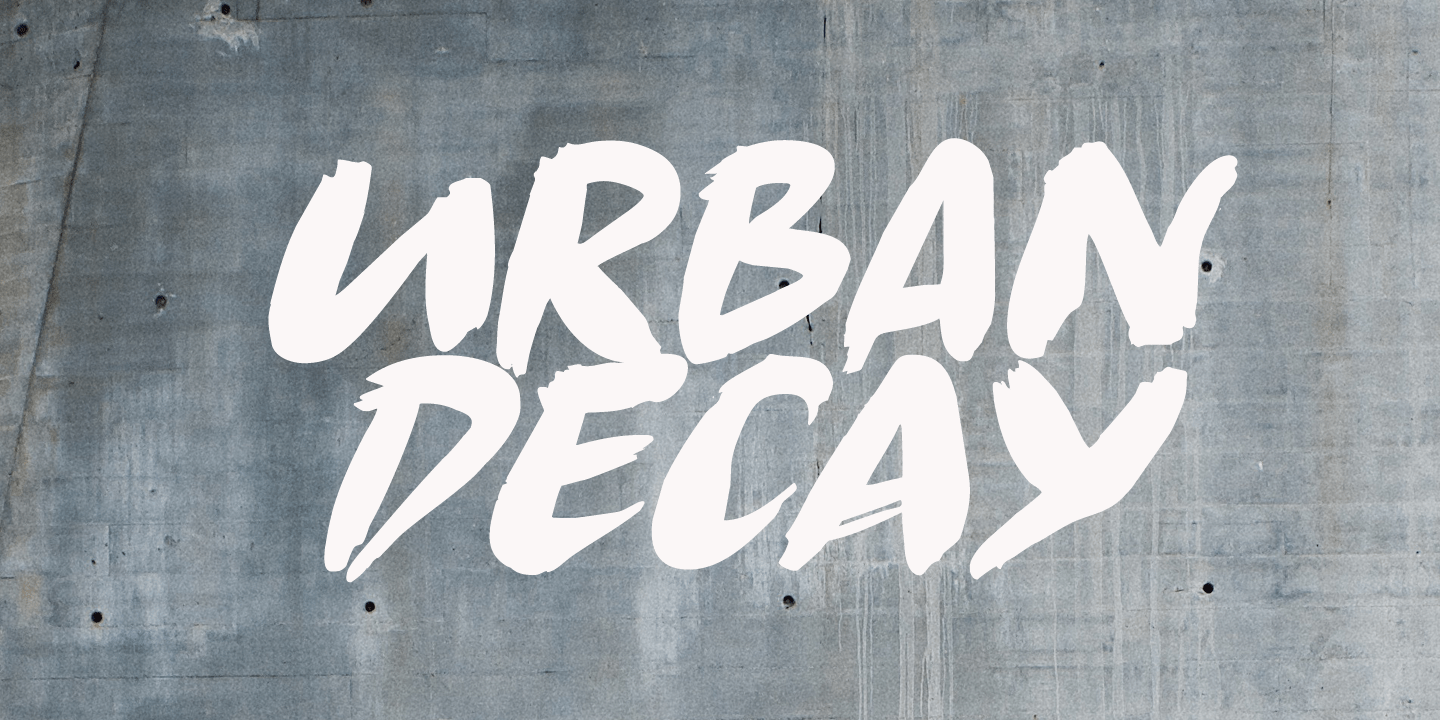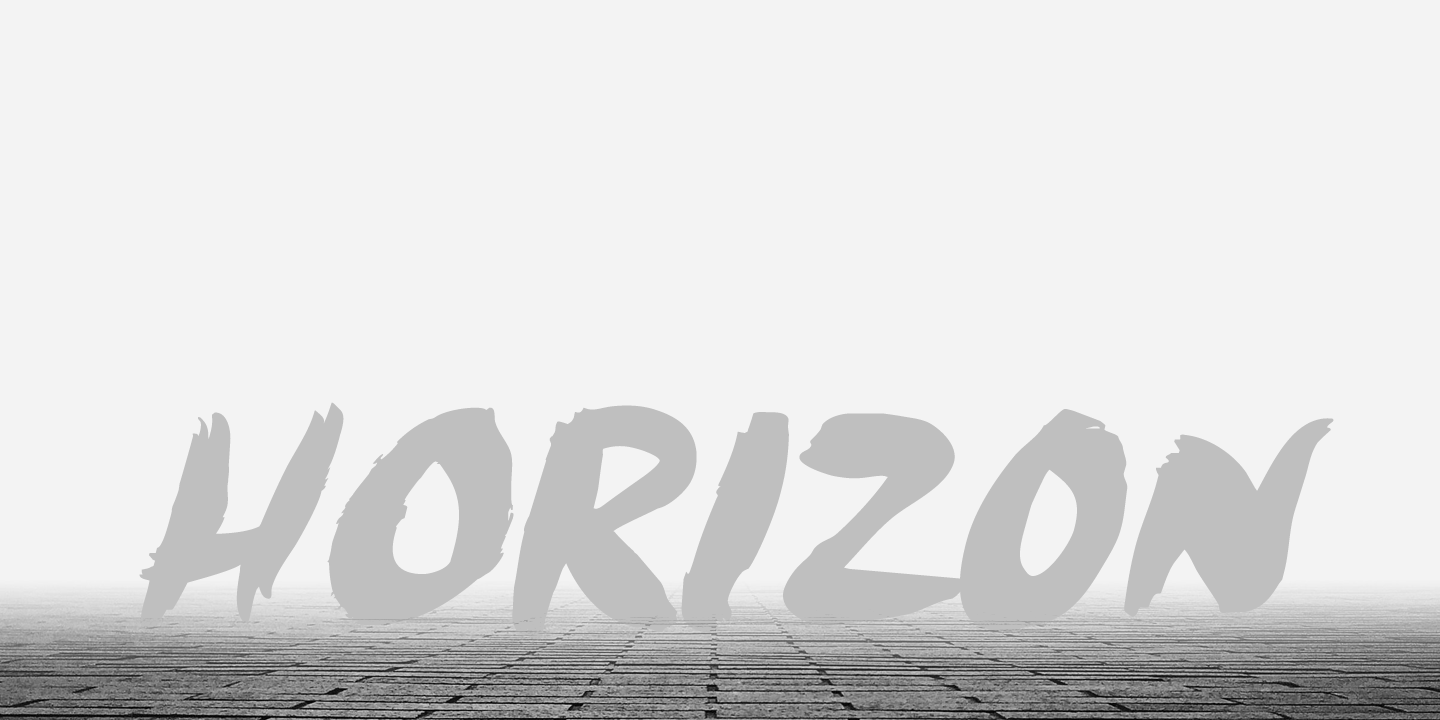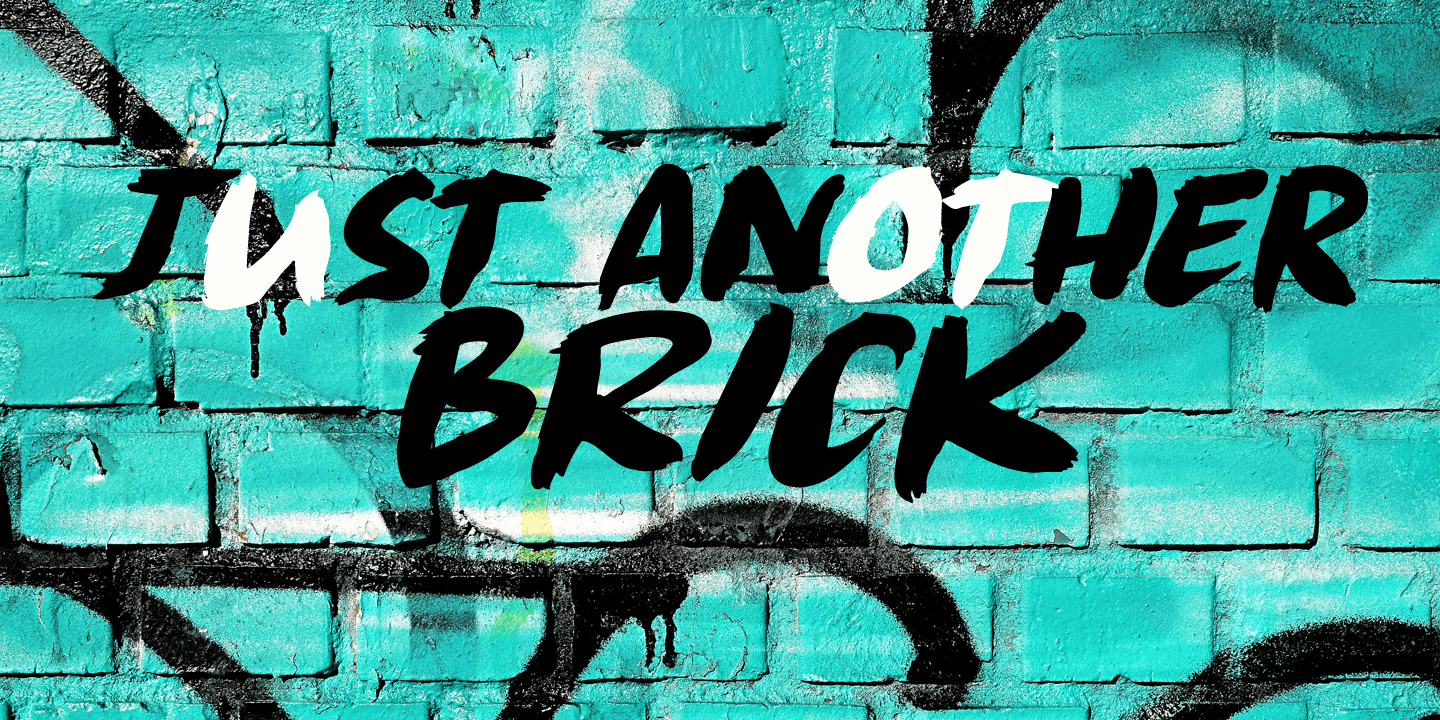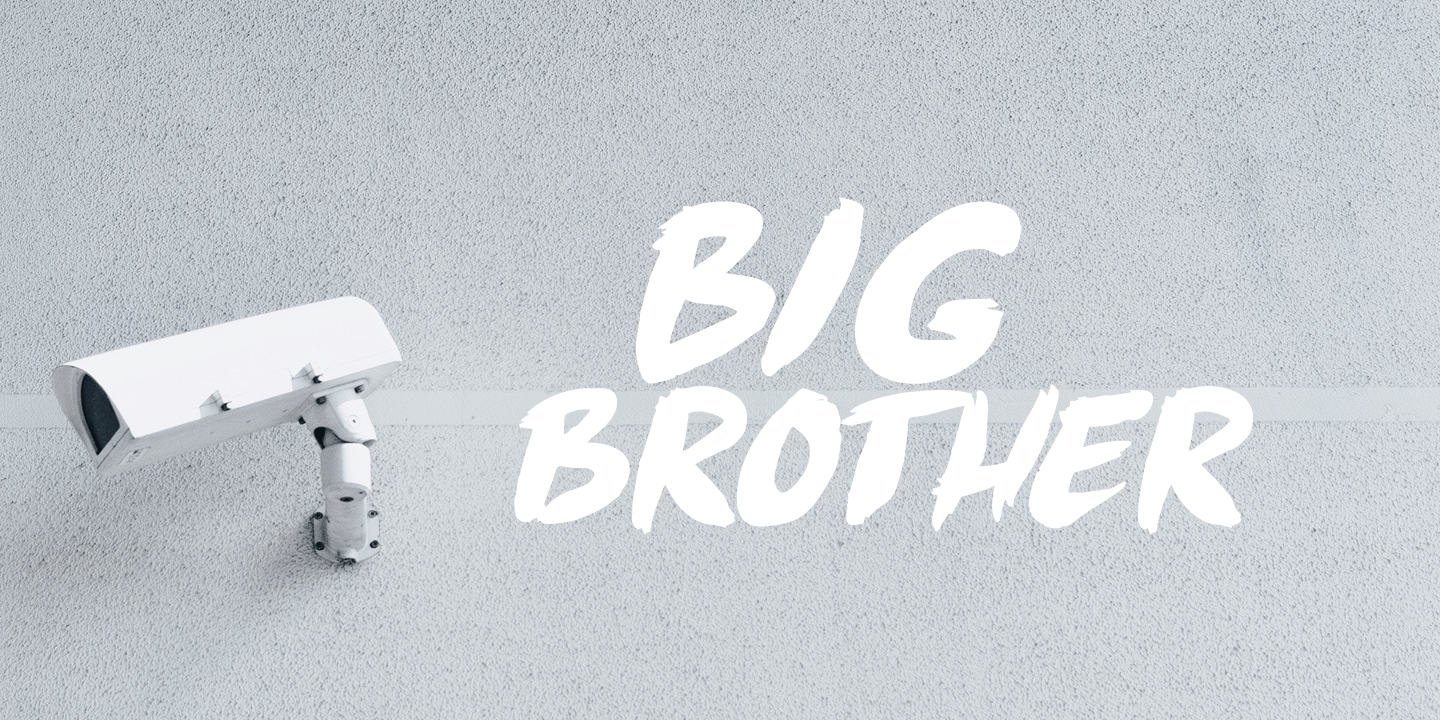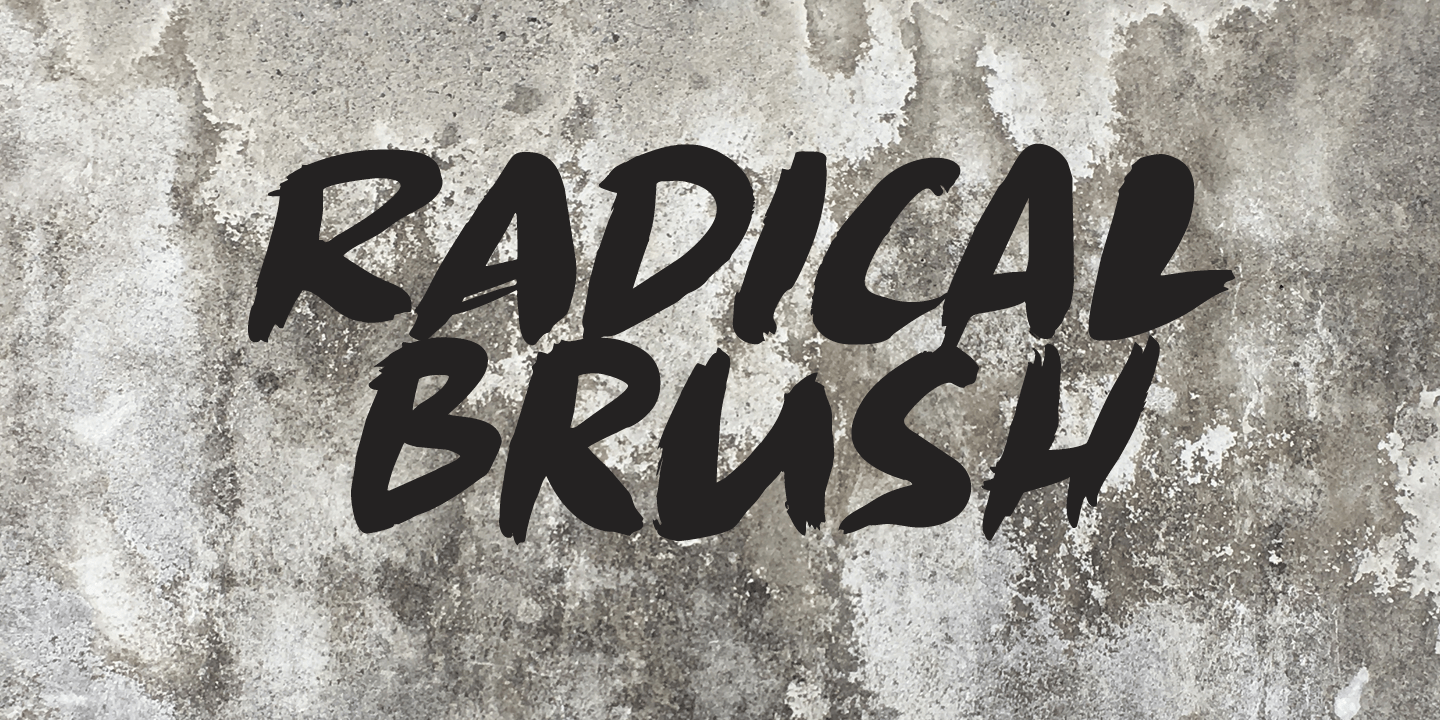
About Radical Brush
Radical Brush is a rather radical font: I made it with a really wild brush and Chinese Ink. I?d probably use it for revolutionary posters, packaging design for extreme products or for R-rated movie posters.